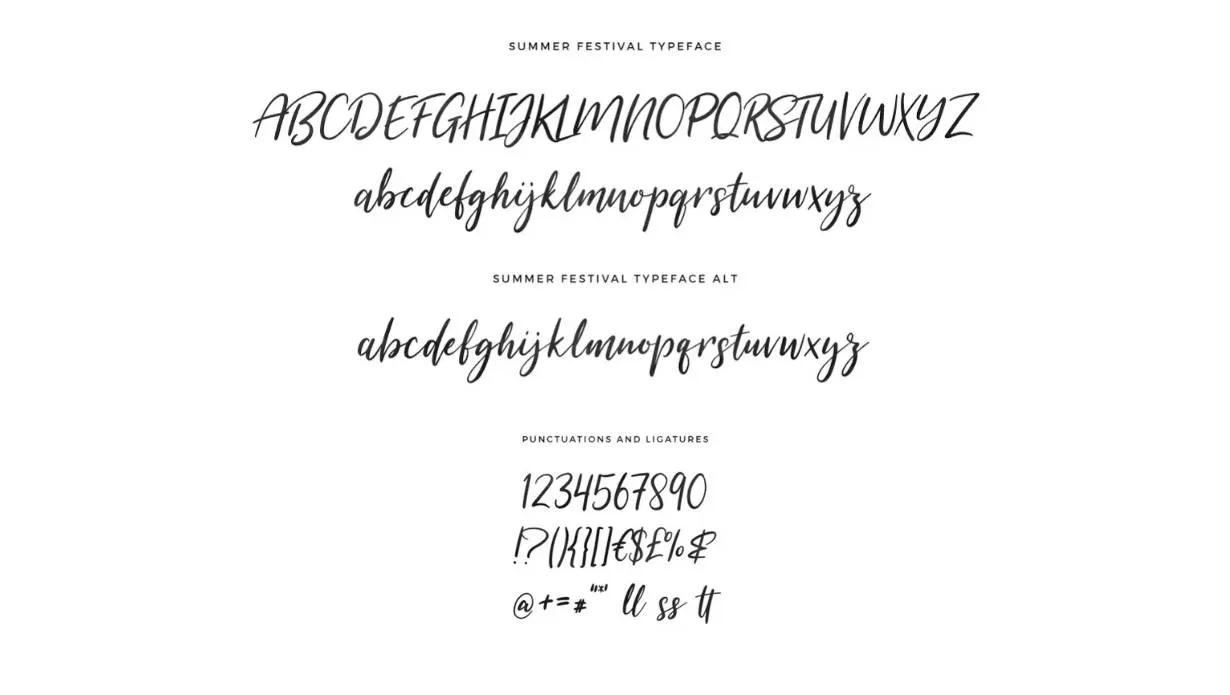
The Summer Festival font encapsulates vibrancy and celebration with its playful and decorative style.
Often used in event posters, party invitations, or designs aiming to convey a festive and lively atmosphere, this font, supported by TTF, OTF, and WOFF file formats, brings an engaging and cheerful aesthetic to various design projects.